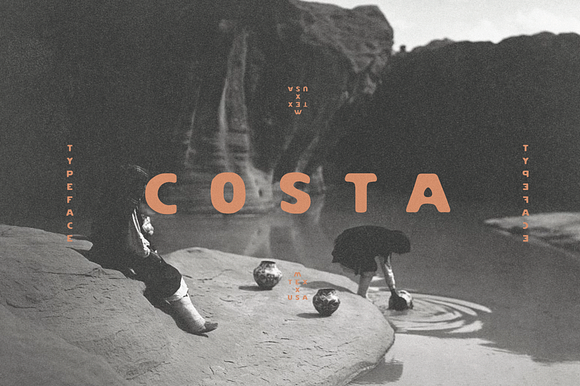
Costa Typeface
Costa is a hand-drawn typeface loosely based on painted signs and type found in coastal Mexican villages. Invoking a dry sun-baked aesthetic while remaining versatile enough for everyday use with a bit of extra character. The Typeface is fully functional with numbers and punctuation.
- The Typeface is fully functional with numbers and punctuation.
- Costa Regular